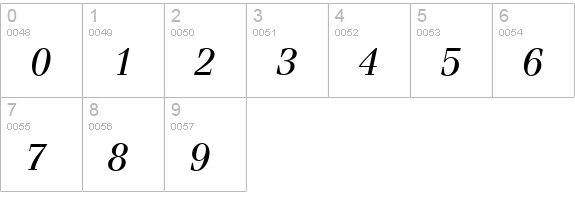
Ferrara-Italic is a distinctive, italic variant in the Ferrara typeface family \xE2\x80\x94 well suited to design and typography projects.
Ferrara-Italic font is a stunning display typeface that exudes elegance and sophistication. Its graceful italics and intricate details make it the perfect choice for projects requiring a touch of refinement. The sleek curves and stylish flourishes of Ferrara-Italic add a sense of luxury to any design, whether it be for invitations, branding, or editorial layouts. This versatile font is free to download at FontsMarket.com, making it accessible to designers and creatives looking to elevate their work with a touch of class. With its timeless appeal and modern flair, Ferrara-Italic is sure to make a lasting impression on any project.